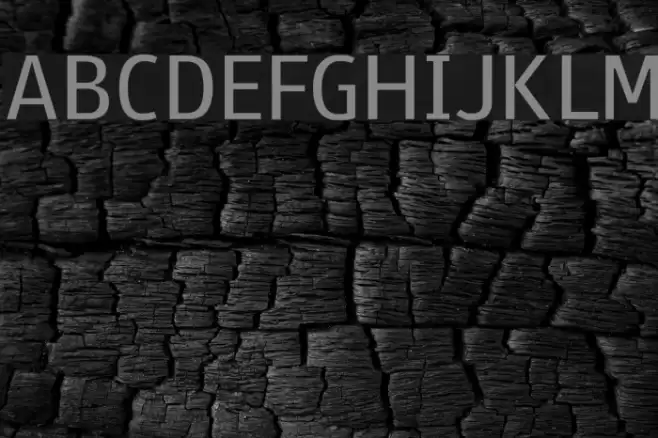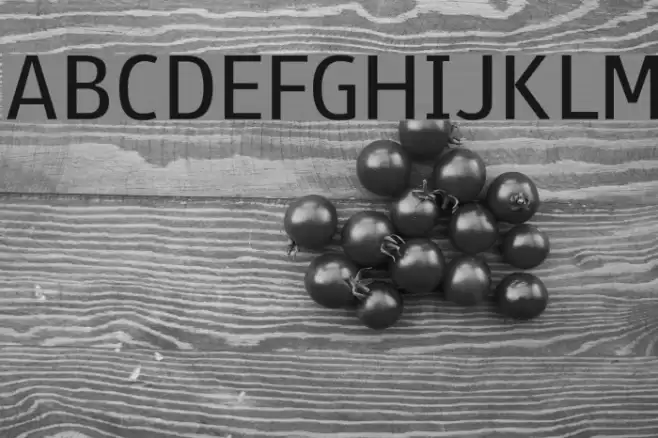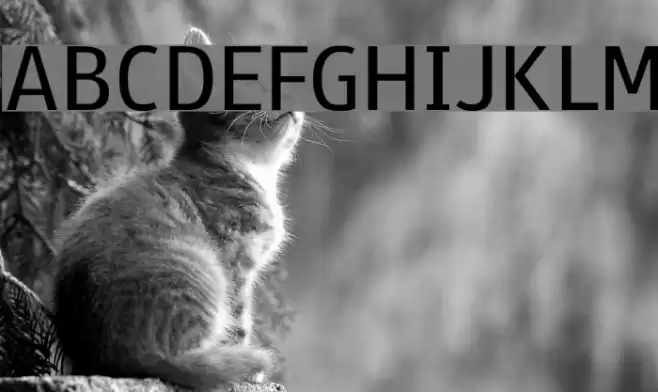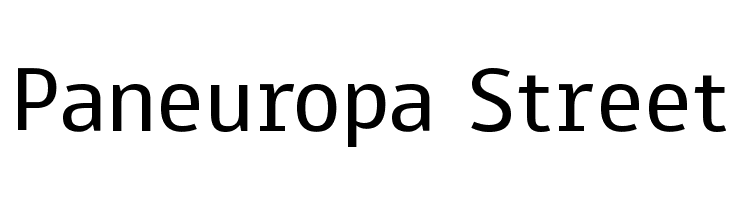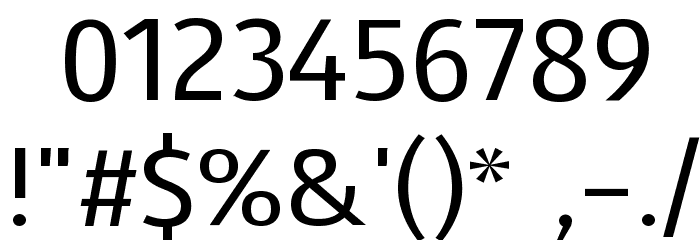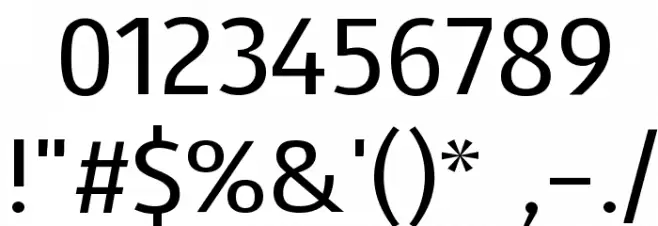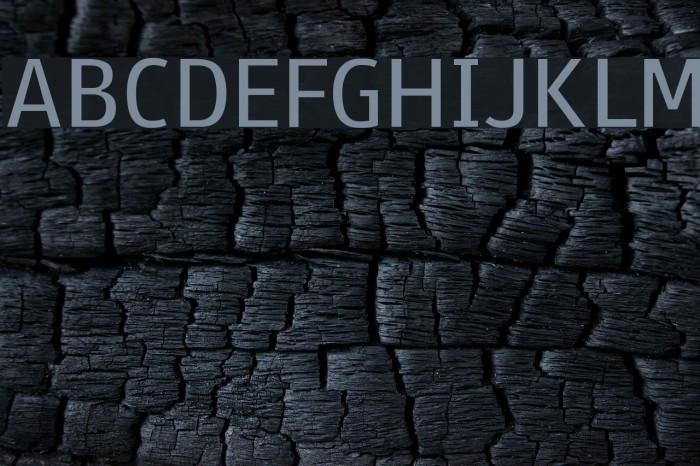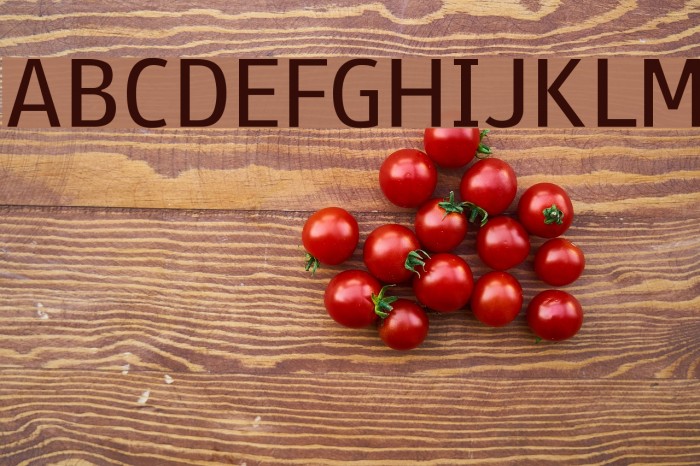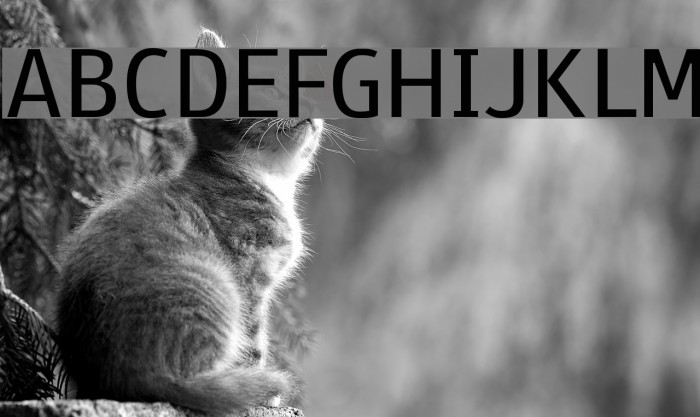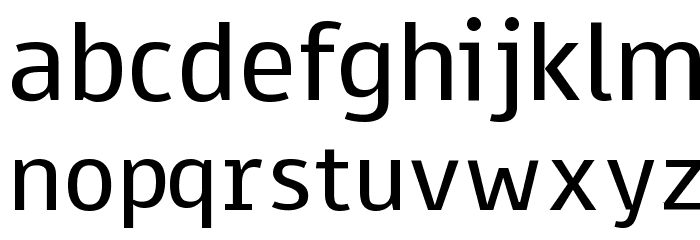
Paneuropa Street Font
Paneuropa Street Description
This typeface features a clean and modern sans-serif design, characterized by its simplicity and readability. The letters are evenly spaced with a consistent stroke width, providing a uniform appearance. The uppercase letters are bold and assertive, while the lowercase letters maintain a balanced and approachable look. The numerals are clear and distinct, making them suitable for a variety of applications. Special characters are well-integrated, ensuring versatility in usage. Overall, this font exudes a contemporary and professional aesthetic, making it ideal for both digital and print media.
A modern sans-serif font with clean lines and balanced proportions from Sans Serif fonts.